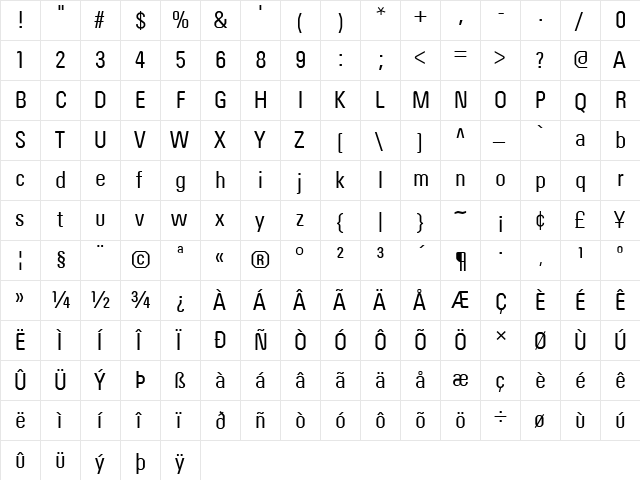
Order Regular
Design Context for Order Typeface
Order takes a measured approach to typography — its balanced proportions and neutral character make it a reliable workhorse for both digital and print work.
Pro Tip: Use Order in both headline and body roles to test its range before committing to a single application.